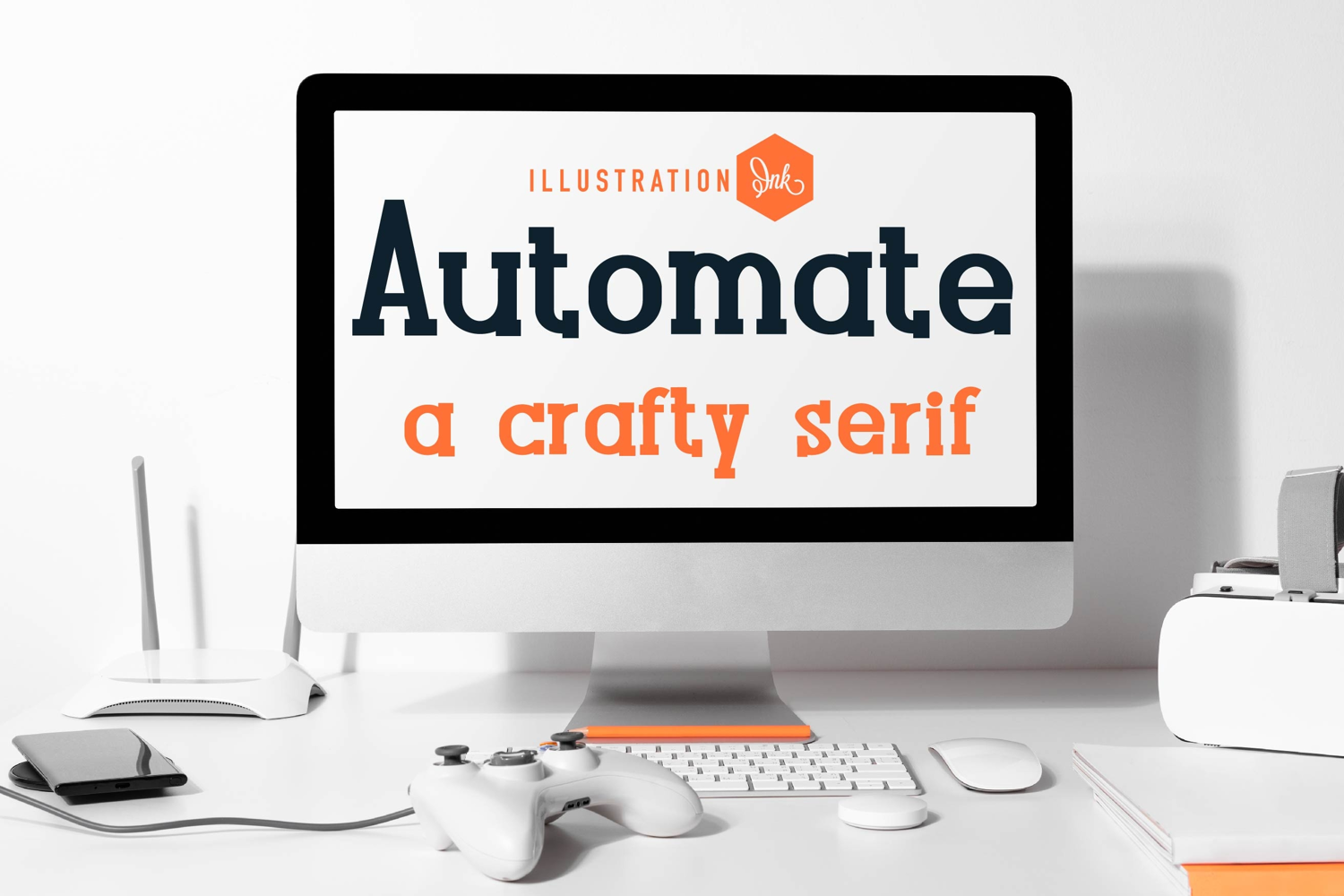
This hand-crafted, serif font has crafty feel and slab serifs throughout.
• The letters are not perfectly uniform in size or shape.
• There may be slight variations in the spacing between letters and words.
• The font may have a "wiggly" or "squiggly" appearance.
• The font may be difficult to read at small sizes.